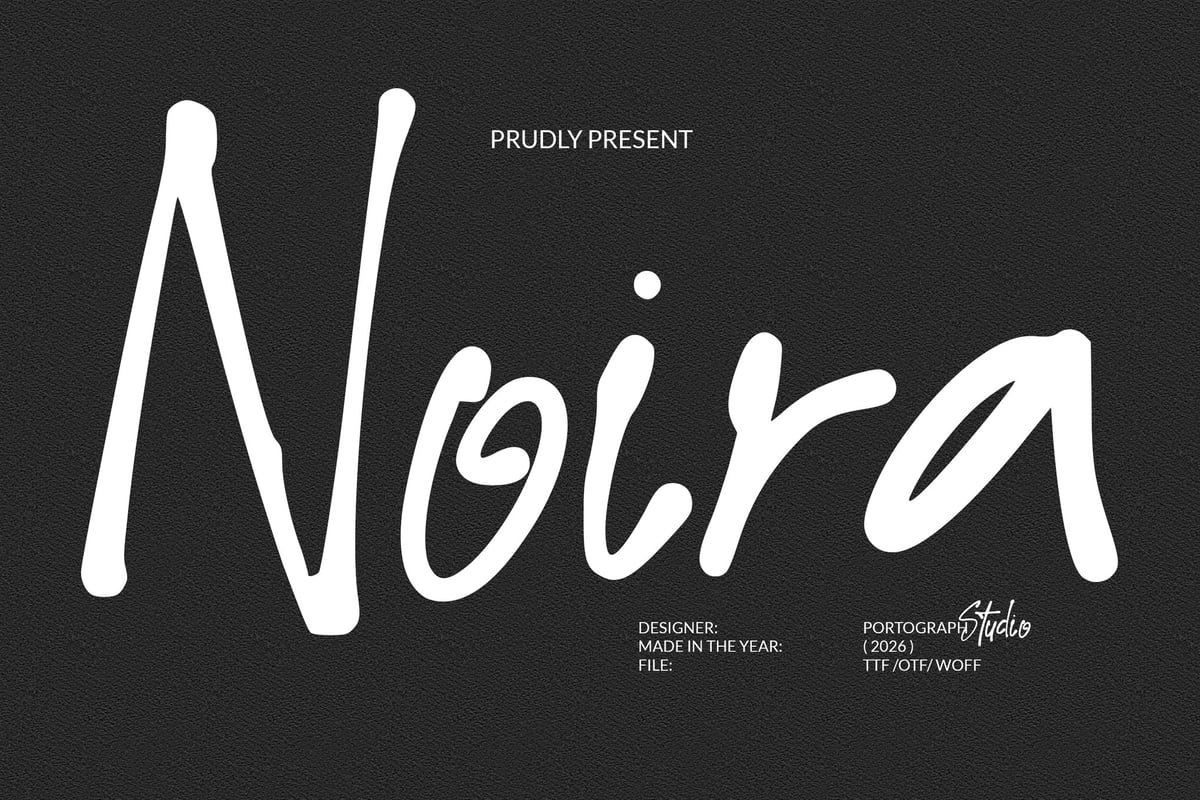
Noira - Handwritten Brush Font
Unleash raw urban energy with Noira, the handwritten brush font that commands attention with every stroke. This expressive typeface delivers a bold handcrafted aesthetic through natural brush strokes, imperfect lines, and energetic letterforms. Perfect for designs that need authenticity and attitude, Noira brings an edgy, urban personality to your creative projects. In Package: OTF TTF WOFF Features: Web Font Extensive glyph collection Ligature & Alternate characters Compatible with PC & Mac Sim...